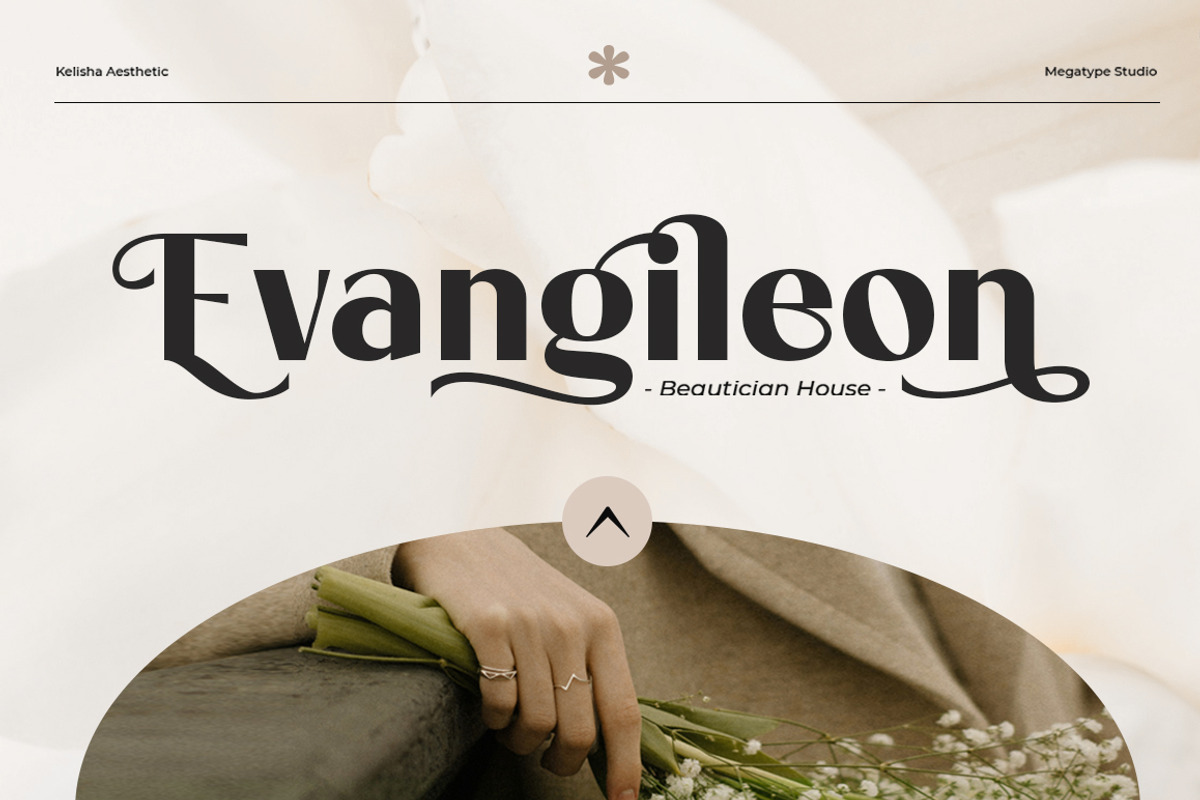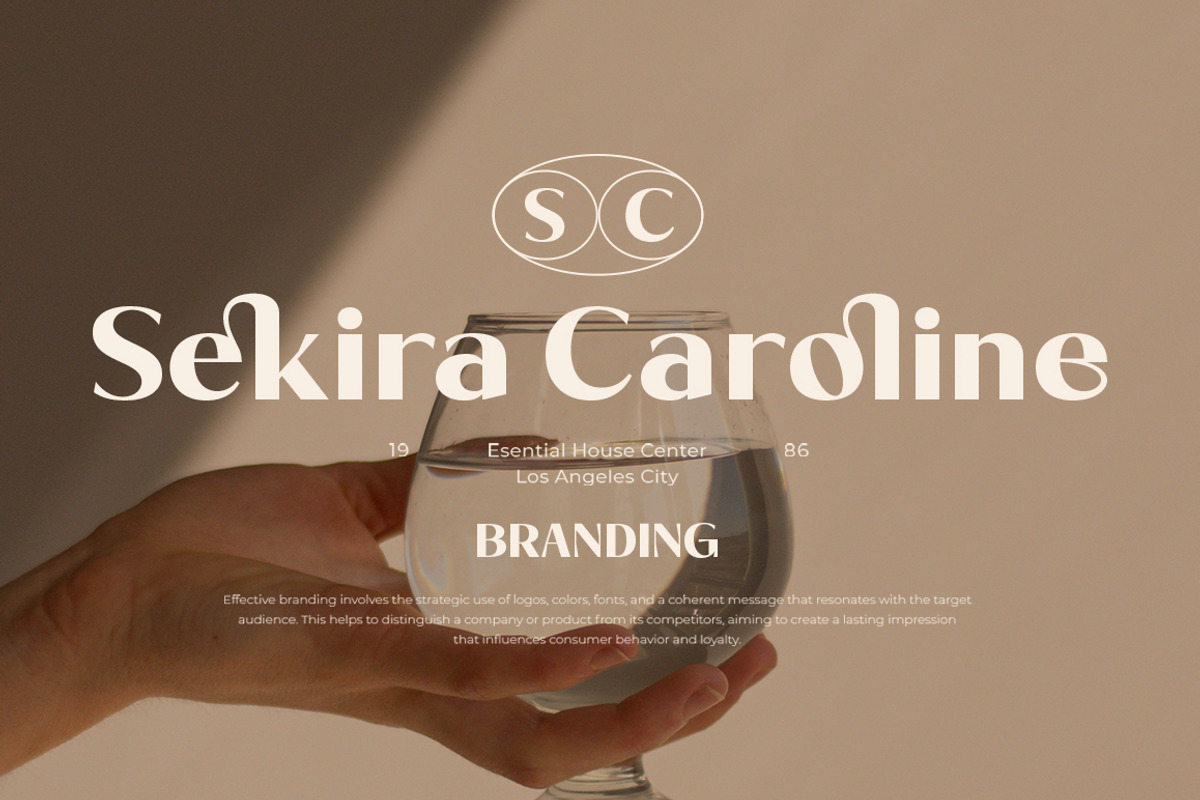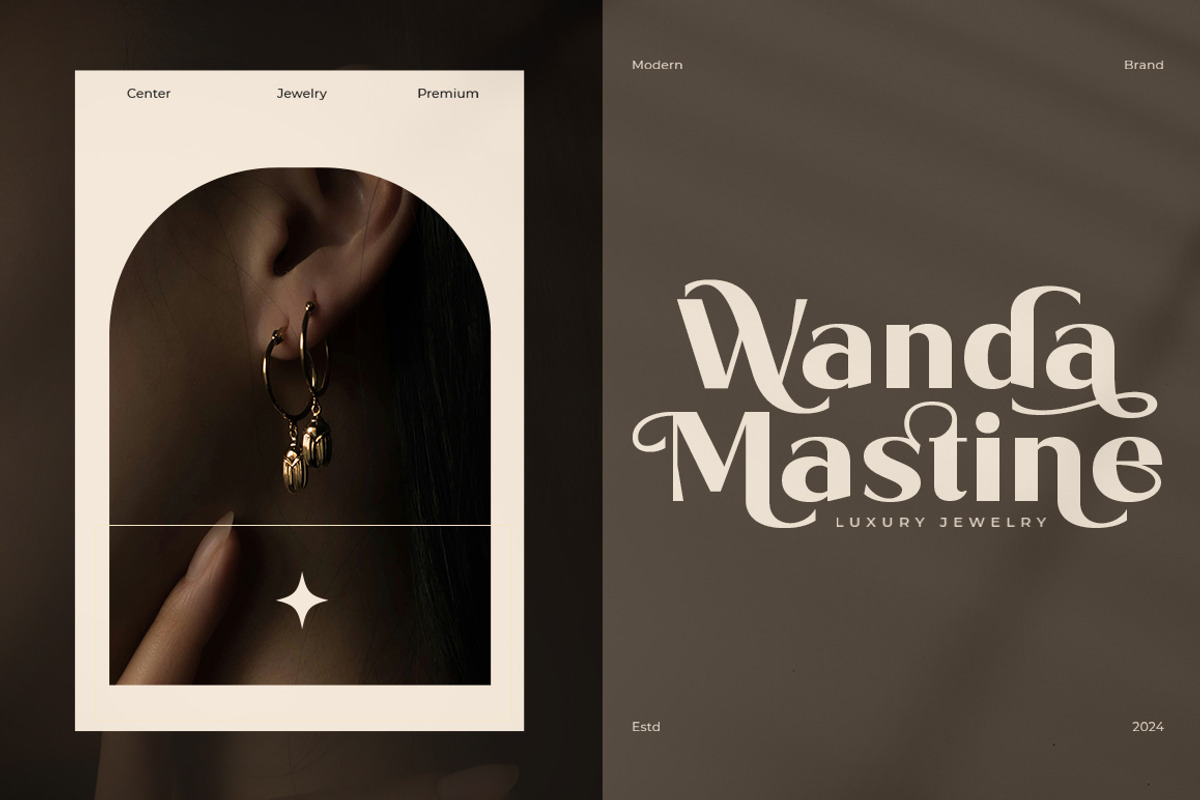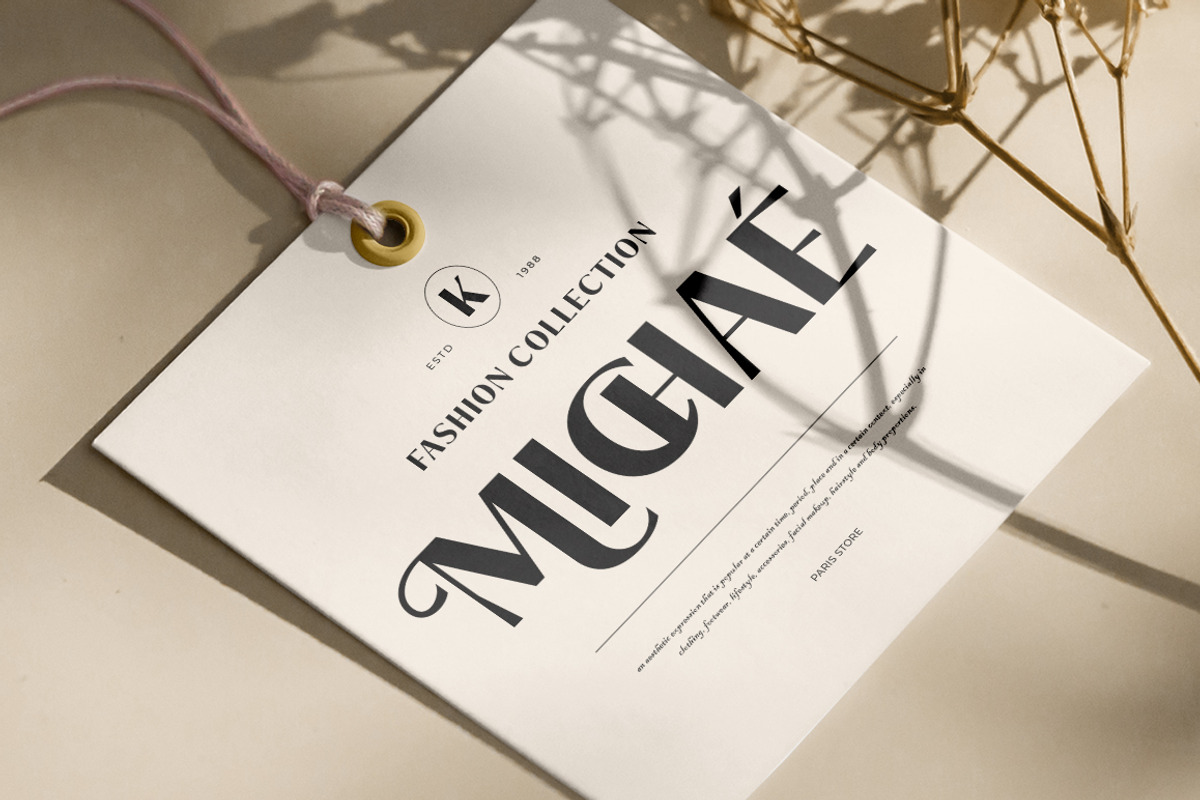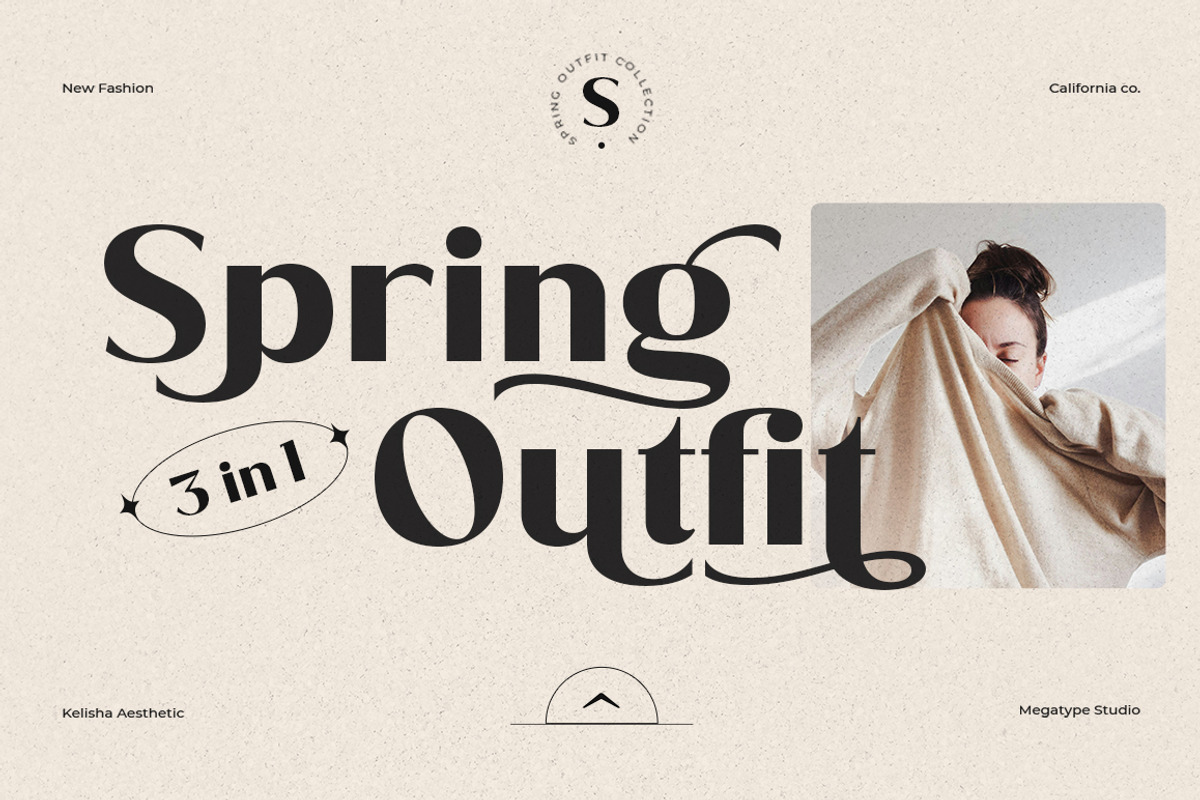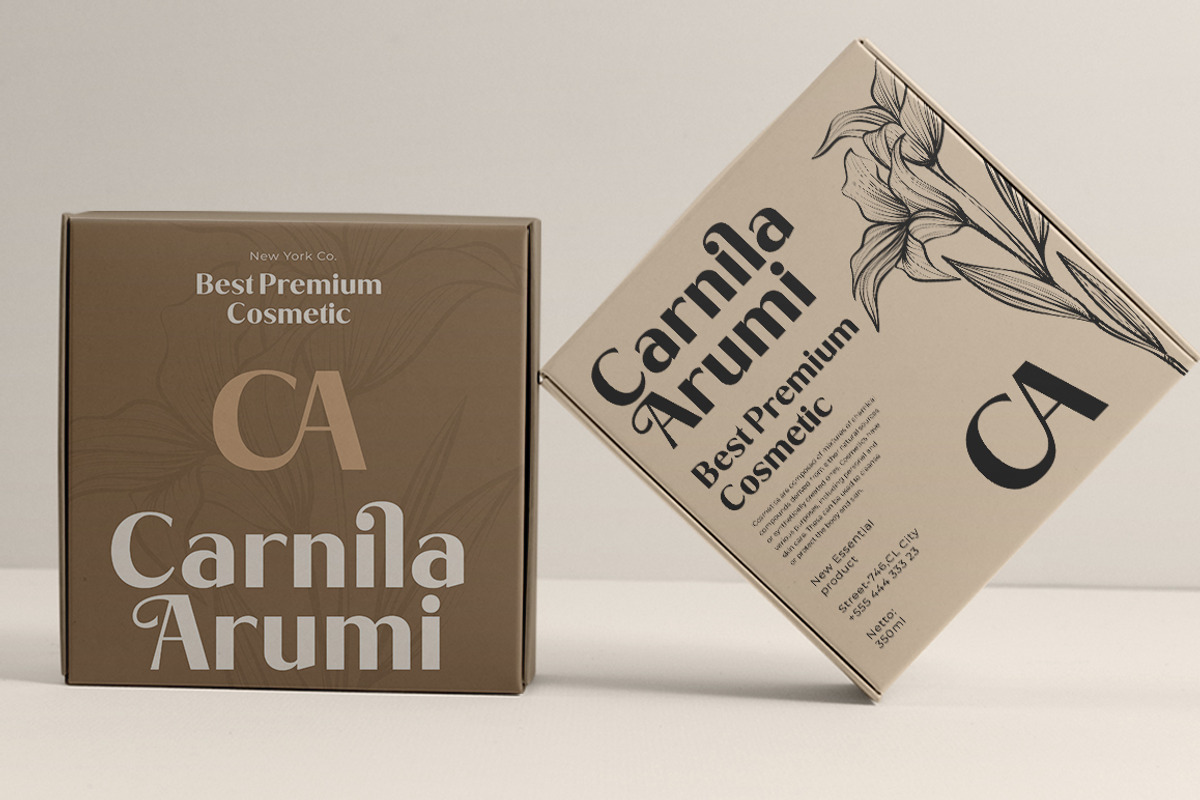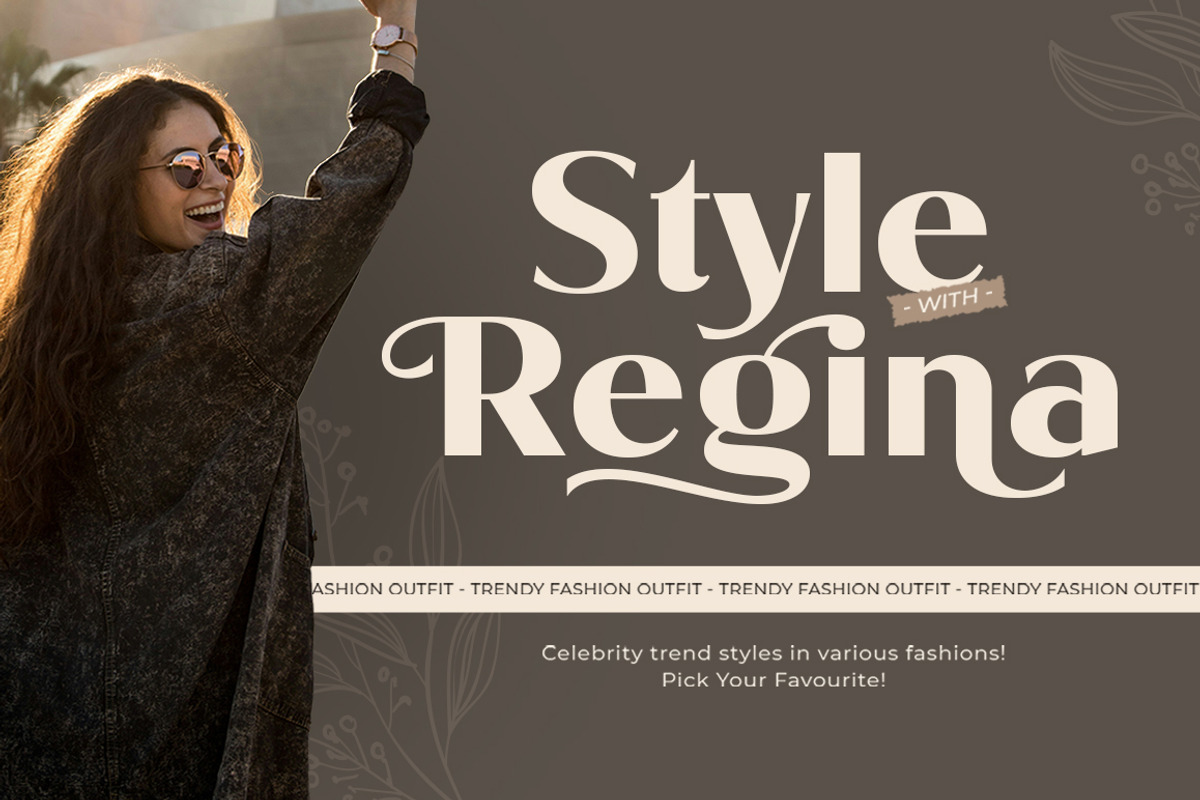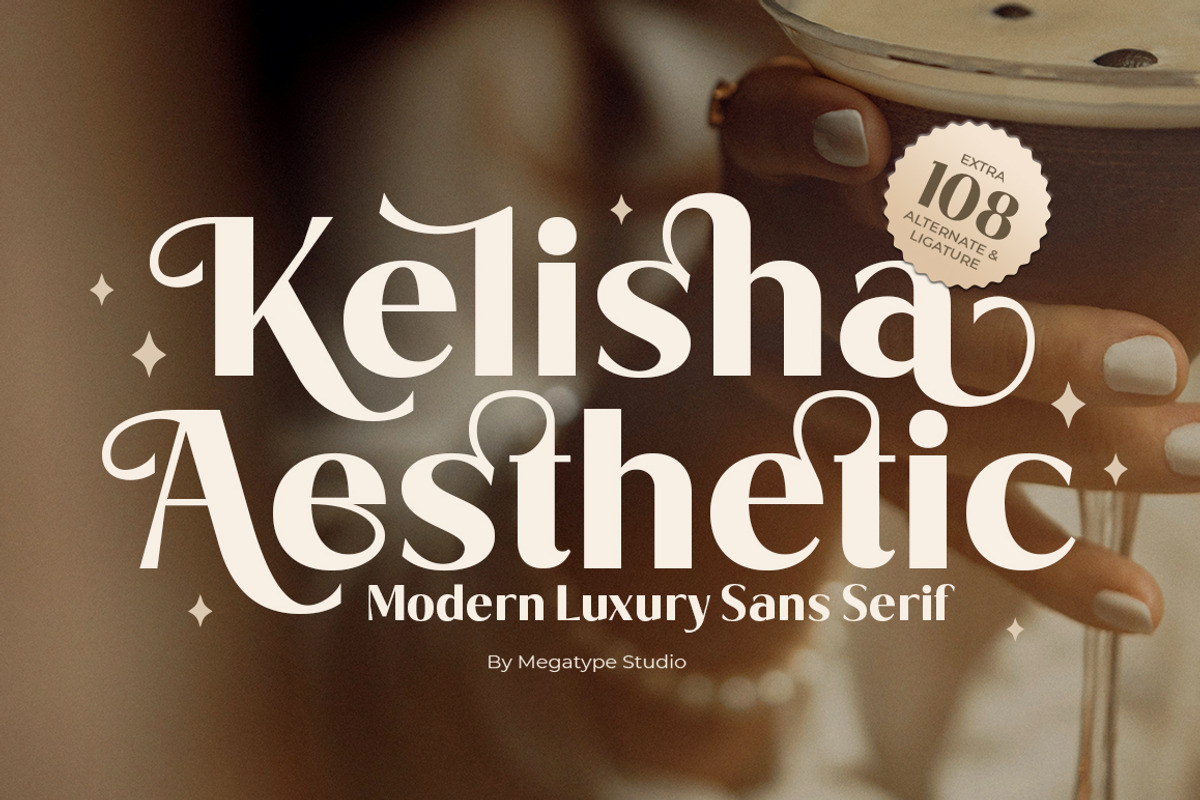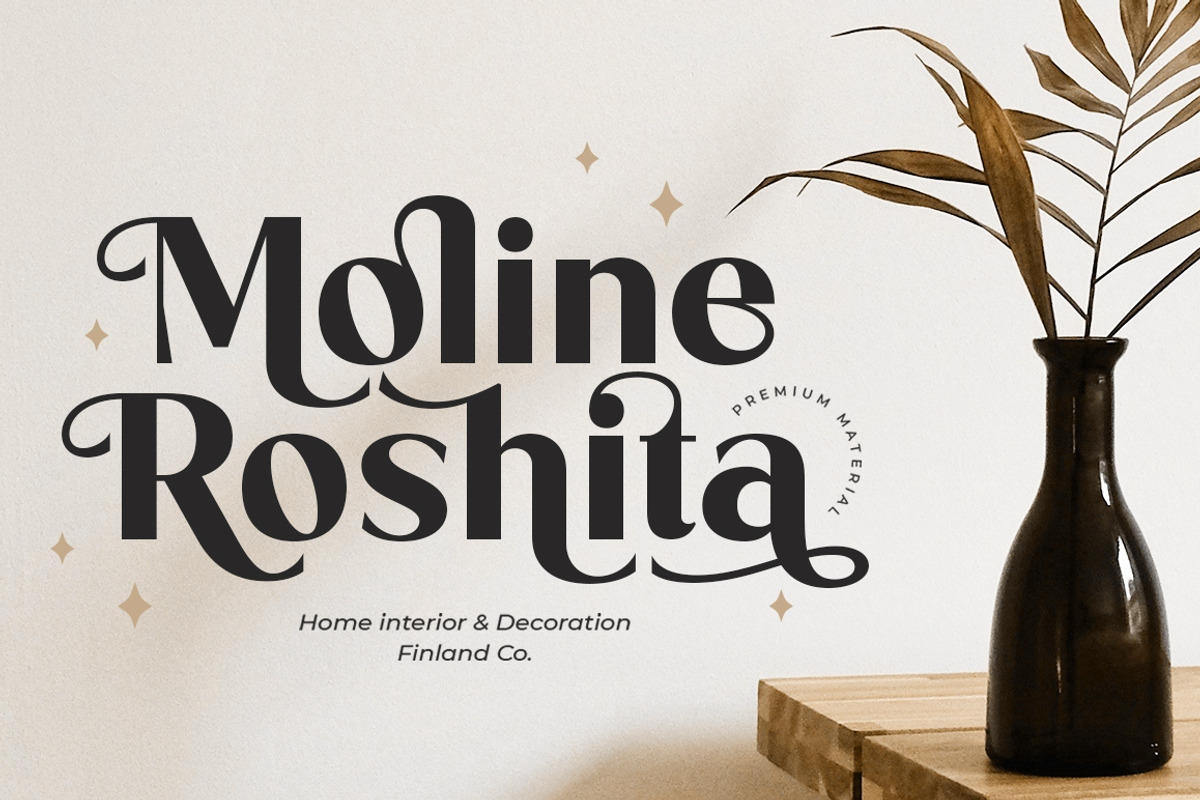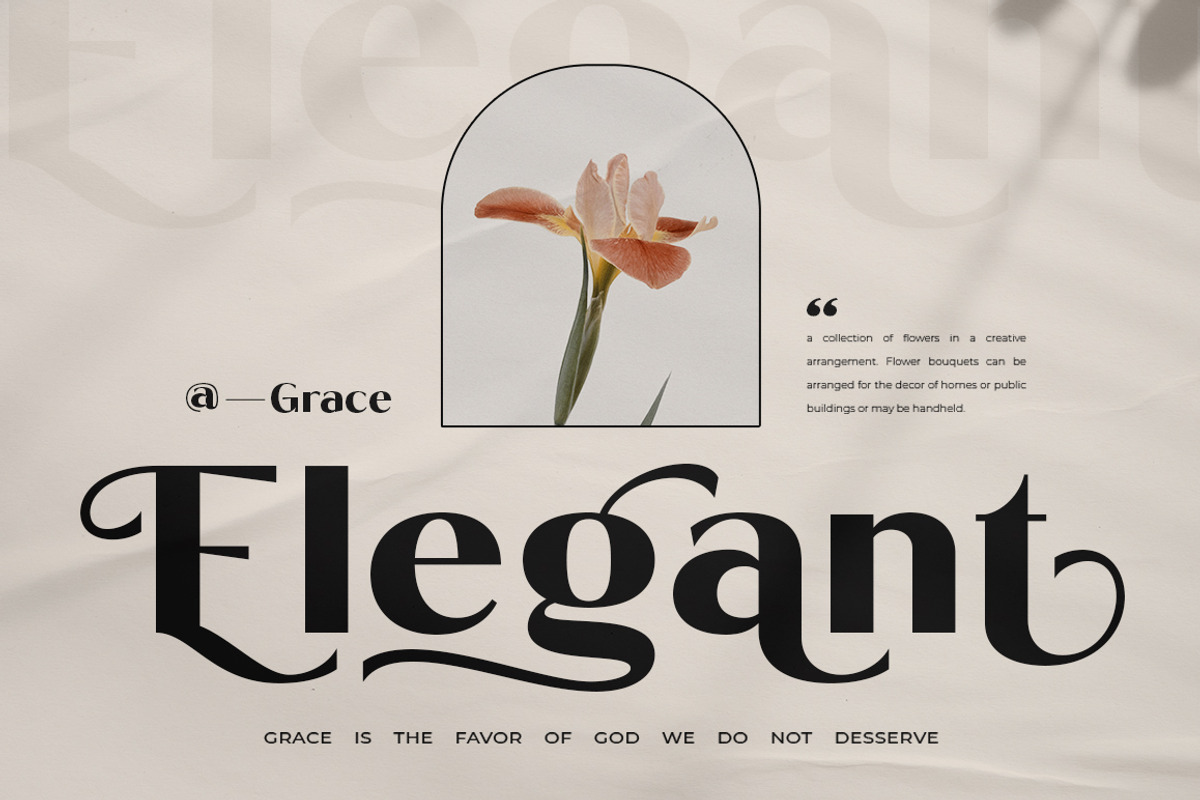
Kelisha Aesthetic
INTRODUCING Kelisha Aesthetic - Modern Luxury Sans Serif Font
Kelisha Aesthetic is a modern luxury sans serif font, with a modern artistic touch, elegant, but still luxurious, I made many alternate variants and more natural ligatures to make this font very classy and look luxurious, and add an elegant and unique style that makes it perfect for your next design project.
Kelisha Aesthetic can be used for various purposes such as Magazine Titles, Advertisements, Branding, Posters, Logos, Subtitles, Business Cards, Editorial Designs, Headlines, Book Covers, Wedding Invitations, Instagram Story Post Templates, Greeting Cards, Quotes, etc.
· All Uppercase and Lowercase
· Numbers & Symbols
· Opentype features ( ligature, alternate )